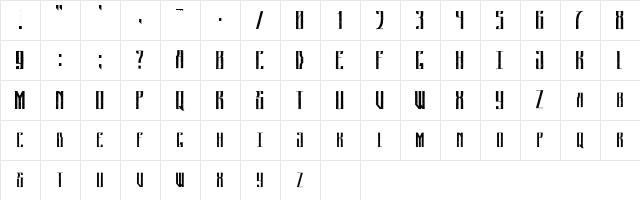
Johny Strocker Rough embraces imperfection - its rough, textured character adds raw authenticity to designs that want to feel lived-in and unconventional.